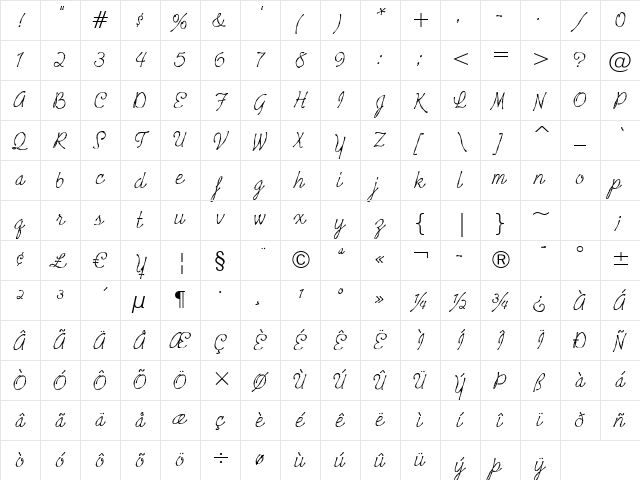
Complete Tropicali Script BTN Bamboo Oblique glyph index. Displaying only characters natively supported by Tropicali Script BTN Bamboo Oblique font.
Tropicali Script BTN Bamboo flows with the natural rhythm of handwritten lettering, making it ideal for designs that call for warmth and personal expression.
Font Pairing: Combine Tropicali Script BTN Bamboo with a simple geometric sans for maximum contrast - the tension between flowing curves and clean structure is a classic typographic pairing.
Pro Tip: Use Tropicali Script BTN Bamboo for short runs of text - names, titles, or taglines. Extended body copy in script faces tires the eye quickly.